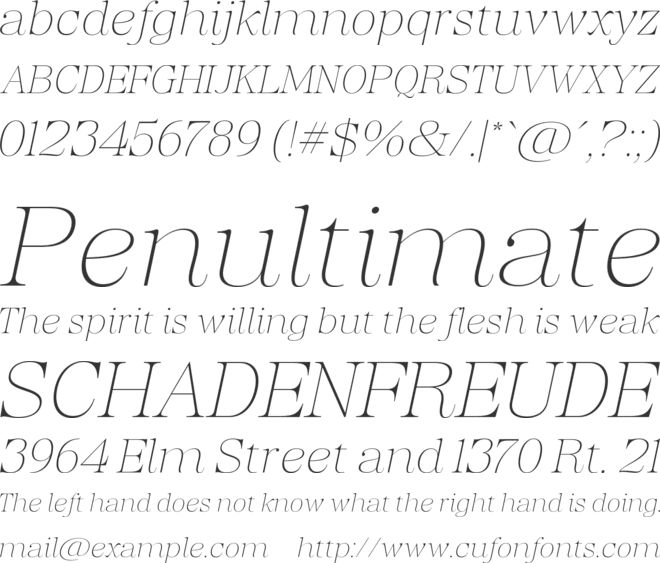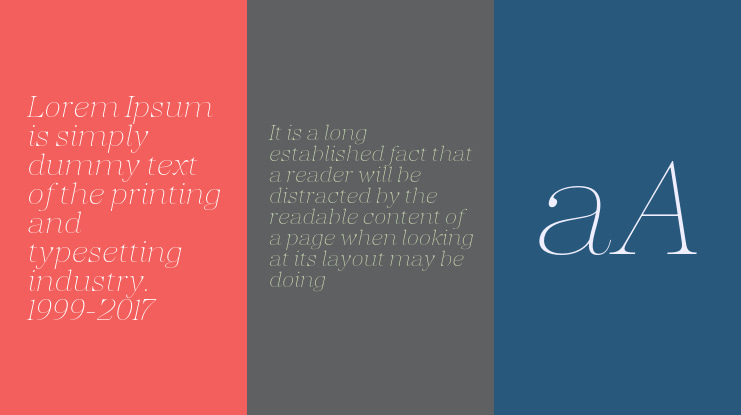
Regaris Thin is the free introductory style from the Regaris luxury serif superfamily, designed to showcase the elegance and sophistication of the complete collection. Featuring refined proportions, delicate high-contrast letterforms, and beautifully balanced details, Regaris Thin is ideal for logos, branding, editorials, fashion, invitations, packaging, and premium display typography.
This free version offers a glimpse into the Regaris design system, while the full commercial family expands into 270 fonts and 3 Variable Fonts, including Weight, Width, Plain & True Italic, and Contrast variations for maximum creative flexibility. The complete family also includes carefully crafted ligatures and extensive Latin Pro language support, making it suitable for professional branding and multilingual projects.
Perfect for:
Luxury Branding • Editorial Design • Fashion • Logo Design • Packaging • Invitations • Social Media • Premium Typography